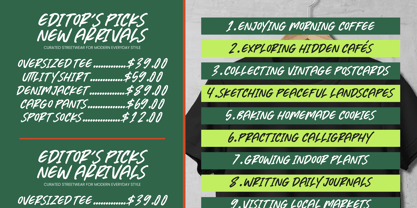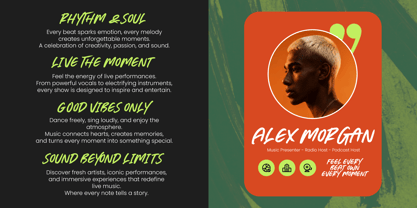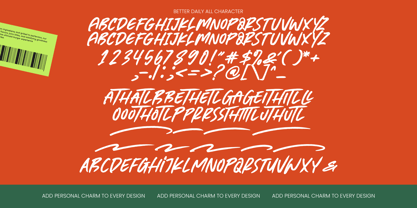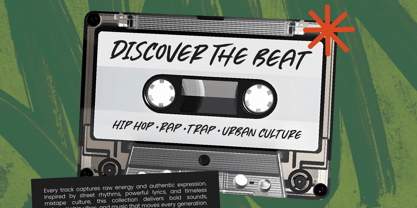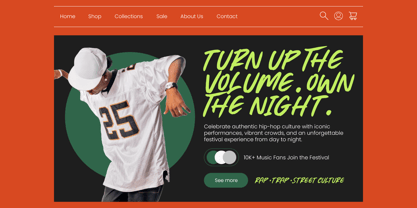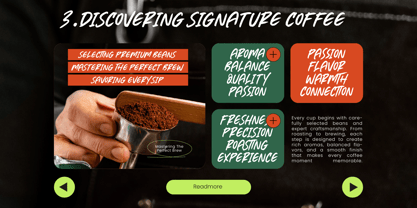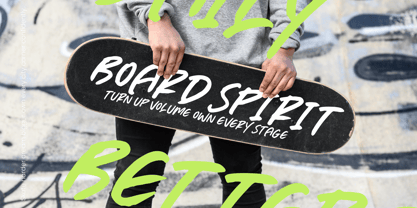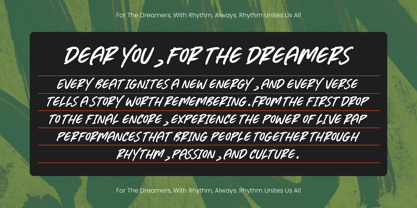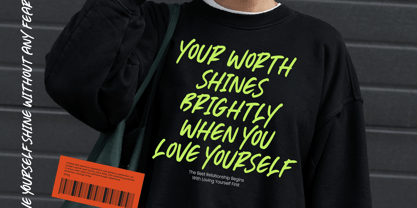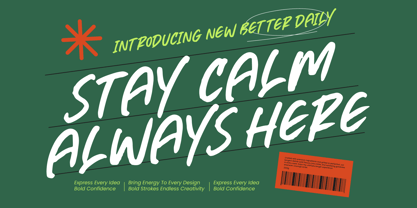
Better Daily
by Letterena Studios
The Better Daily Font Family was designed by Heru Utama Putra and published by Letterena Studios. Better Daily contains 2 styles and family package options. More about this family
Better Daily - Modern All Caps Handwritting
Elevate your brand’s visual identity with the raw energy and effortless style of Better Daily - Modern All Caps Handwritting. This high-impact typeface captures the essence of contemporary brush lettering, offering a dynamic aesthetic that feels both personal and professional. Designed to command attention, Better Daily - Modern All Caps Handwritting is the perfect choice for creators looking to inject authentic character and a modern edge into their graphic design projects.
Versatility is at the heart of this font’s design, featuring a robust set of custom ligatures and stylistic alternates that ensure every composition looks unique. With its extensive multilingual support, Better Daily - Modern All Caps Handwritting adapts seamlessly across global markets, making it incredibly versatile for international projects. This comprehensive glyph set allows designers to maintain a consistent brand voice while reaching diverse audiences across the world.